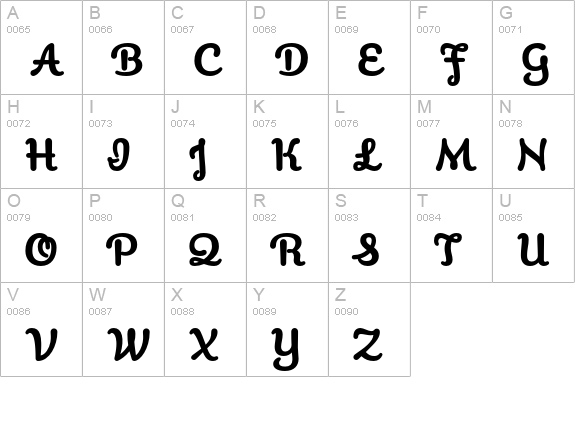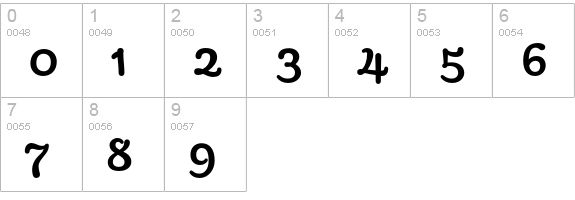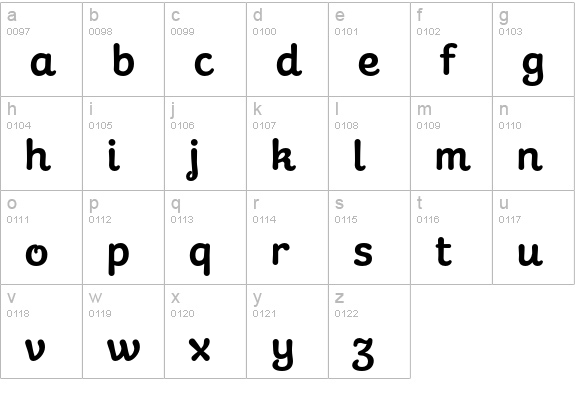
GalaxieCassiopeiaBasic-Bold is a strong, high-contrast variant in the GalaxieCassiopeiaBasic typeface family \xE2\x80\x94 well suited to headlines, attention-grabbing titles, and strong calls-to-action.
GalaxieCassiopeiaBasic-Bold font is a stunning display typeface that exudes strength and elegance. Its bold and powerful letterforms make it perfect for headlines, logos, and branding projects that require a touch of sophistication. This font captures attention with its clean lines and distinct shapes, creating a visually striking impact. With its generous x-height and robust strokes, GalaxieCassiopeiaBasic-Bold font ensures excellent legibility even at smaller sizes. Each character is meticulously designed to achieve harmony and balance, providing a seamless reading experience. The font's timeless appeal makes it versatile and suitable for various design styles, from modern to classic. What makes GalaxieCassiopeiaBasic-Bold font even more appealing is that it is available for free. You can easily download this font at FontsMarket.com, a trusted online platform for high-quality typefaces. Whether you are a professional designer or an aspiring creative, this font allows you to enhance your projects without any financial burden. Utilize GalaxieCassiopeiaBasic-Bold font to elevate your designs to new levels of sophistication. Its bold presence will leave a lasting impression and ensure that your message stands out. With its wide range of potential applications and its availability as a free download, this font is a valuable asset for any designer looking to create impactful and memorable designs.